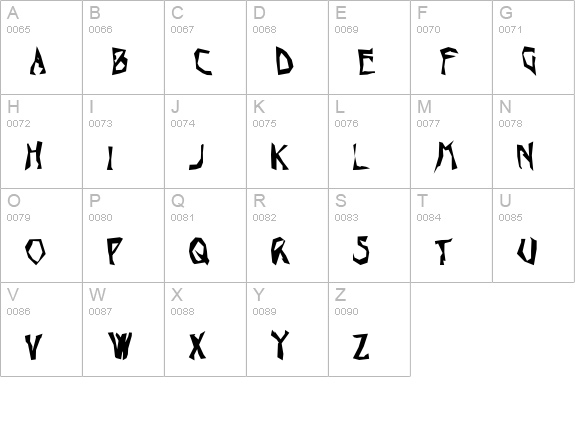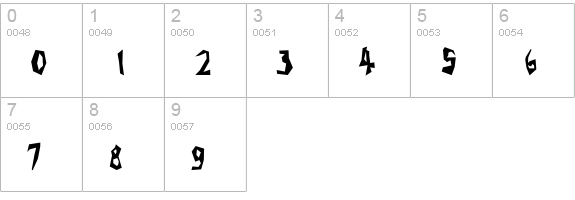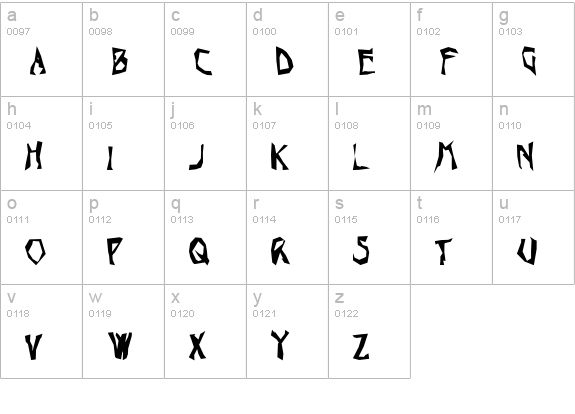
ToucanGrunge Font Details
Introducing ToucanGrunge, a captivating and versatile font that brings a unique touch of edgy grunge to your designs. This font is designed with meticulous attention to detail, creating a visually striking aesthetic that stands out from the crowd. ToucanGrunge is perfect for those seeking to add a touch of raw energy and urban flair to their projects. Its bold letterforms and distressed textures exude an effortlessly cool vibe, making it ideal for a wide range of creative endeavors. Whether you're working on a logo, poster, album cover, or any other design project, ToucanGrunge effortlessly captures attention and injects a sense of rebellious spirit into your work. Its handcrafted letterforms possess an organic and rugged charm that adds character and depth to your designs. One of the best things about ToucanGrunge is that it is completely free! That's right, this font is freely available to download at FontsMarket.com. Now you can enjoy the benefits of this remarkable font without any cost, making it accessible to designers of all levels. Don't miss out on the opportunity to enhance your designs with the captivating energy of ToucanGrunge. Download it today from FontsMarket.com and unleash your creativity with this one-of-a-kind font.